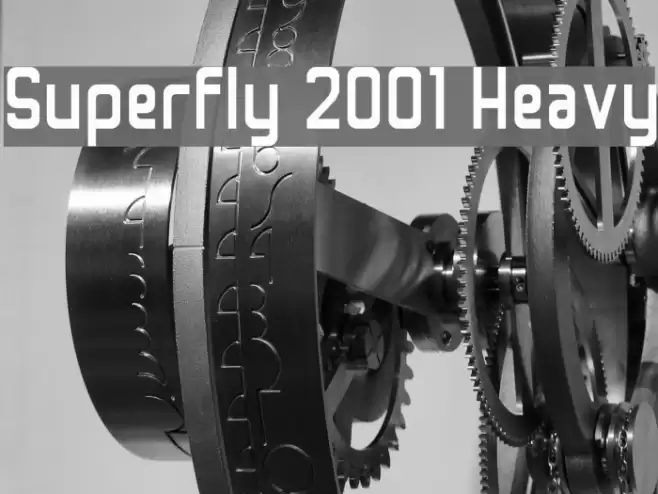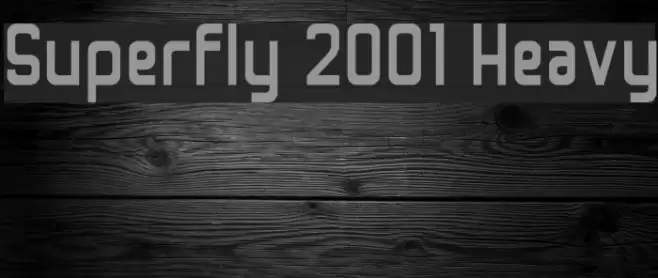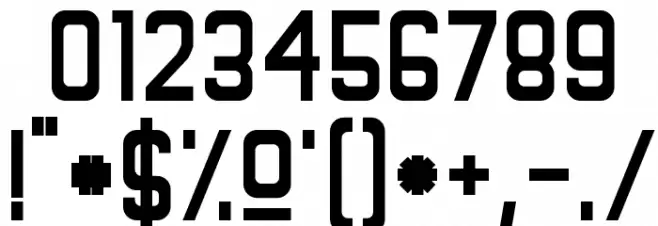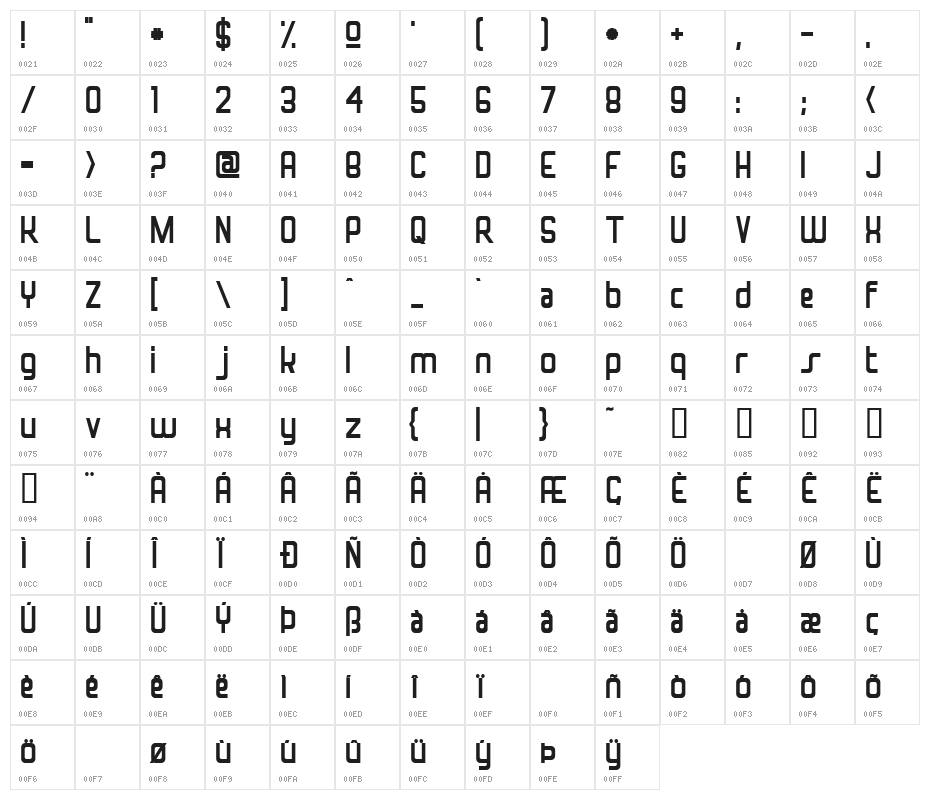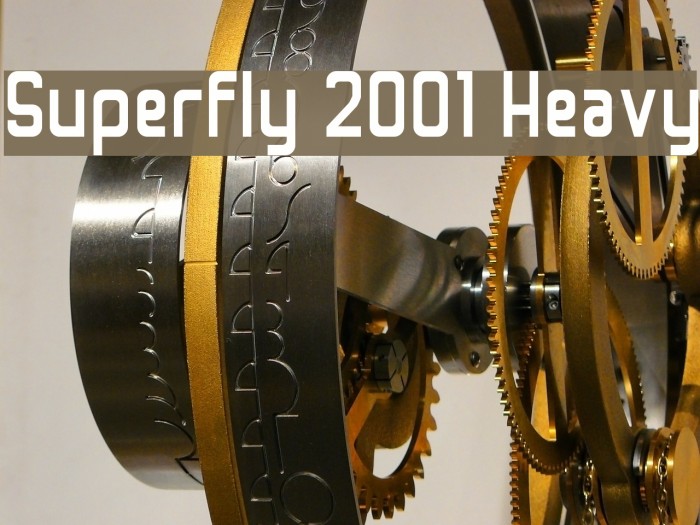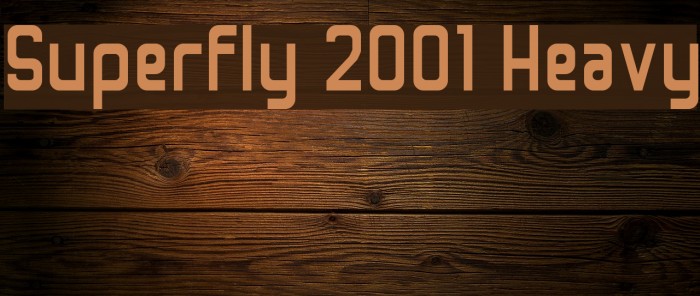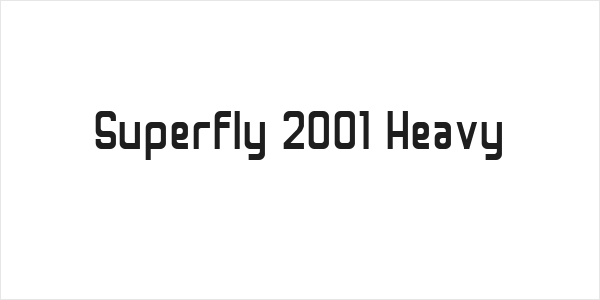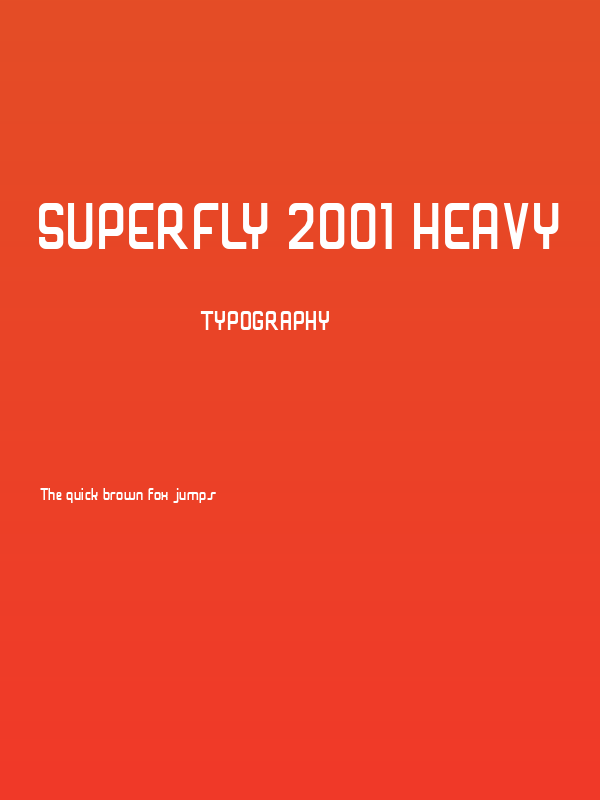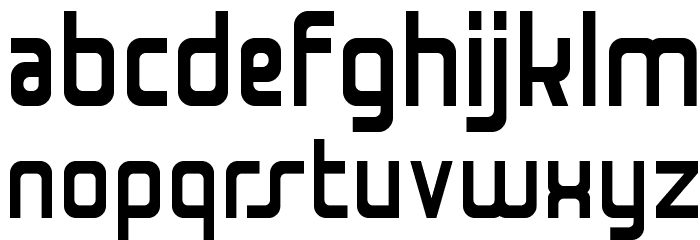
Superfly 2001 Heavy Font
Superfly 2001 Heavy Description
This font features a bold, geometric design with a modern and futuristic aesthetic. The characters are constructed with uniform stroke widths, giving them a sturdy and robust appearance. The uppercase letters are tall and slightly condensed, while the lowercase letters maintain a consistent height, creating a harmonious balance. The numerals are clear and legible, matching the overall style of the alphabet. Special characters are distinct and integrate seamlessly with the rest of the font, making it versatile for various applications. The font's clean lines and structured form make it ideal for projects that require a strong visual impact.
A bold, geometric font with a modern and futuristic style from Uncategorized fonts.
- Proposed Projects: Ideal for branding, posters, headlines, and digital interfaces.